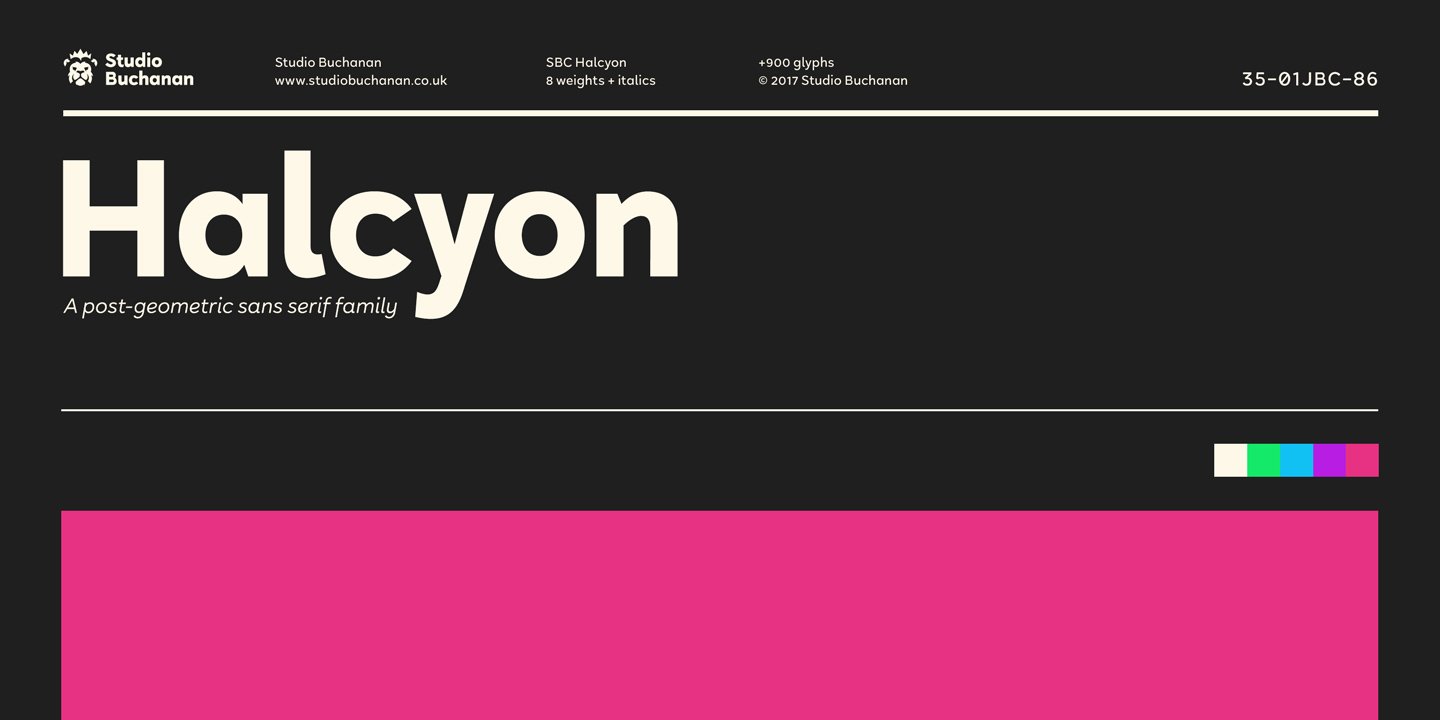
Halcyon Font is a serene and sophisticated sans-serif typeface that effortlessly embodies a sense of peaceful elegance and modern clarity. Its clean lines, balanced proportions, and open forms make it an exceptional choice for projects aiming to convey tranquility, refined simplicity, and a light, optimistic feel. Imagine it perfect for wellness and mindfulness branding, minimalist website designs, serene photography portfolios, gentle lifestyle blogs, elegant product packaging for organic goods, and sophisticated editorial layouts. This font excels in environments where a sense of calm, approachability, and an unmistakable modern aesthetic are paramount. It’s particularly effective for conveying harmony, ease, and a memorable aesthetic, ensuring your message not only stands out but also resonates with an irresistible grace and calming appeal.
What makes Halcyon Font truly exciting is its ability to infuse designs with an ethereal quality and a fresh, inviting presence. It often features generous counter-spaces and a balanced visual weight that gives each character a sense of effortless elegance and open breathability. This font isn't just about displaying text; it's about cultivating a peaceful and beautiful visual experience, injecting your designs with a sense of natural artistry and tranquil sophistication. It has a powerful ability to feel both incredibly refined and surprisingly versatile, making it an ideal tool for designers who want their work to convey sophistication, tranquility, and a truly memorable visual impact. Halcyon Font Free Download empowers brands and creatives to project an image that is graceful, aspirational, and full of timeless beauty.
The Halcyon Font family typically offers a range of weights and styles to ensure maximum versatility for diverse design projects. You'll often find it includes a spectrum from light or thin to regular, medium, and bold, sometimes extending to ultra-bold or black weights, providing robust options for typographic hierarchy and emphasis. Corresponding italic styles are also commonly available, allowing for dynamic variations in text presentation. This extensive family ensures that Halcyon Font can adapt seamlessly to any design challenge, from exquisite headlines that capture attention to comfortable body text in a serene publication, all while maintaining a consistent and harmonious visual language. Its broad character set usually covers a wide range of Latin characters, numbers, and extensive punctuation, making it suitable for international projects and sophisticated textual layouts.